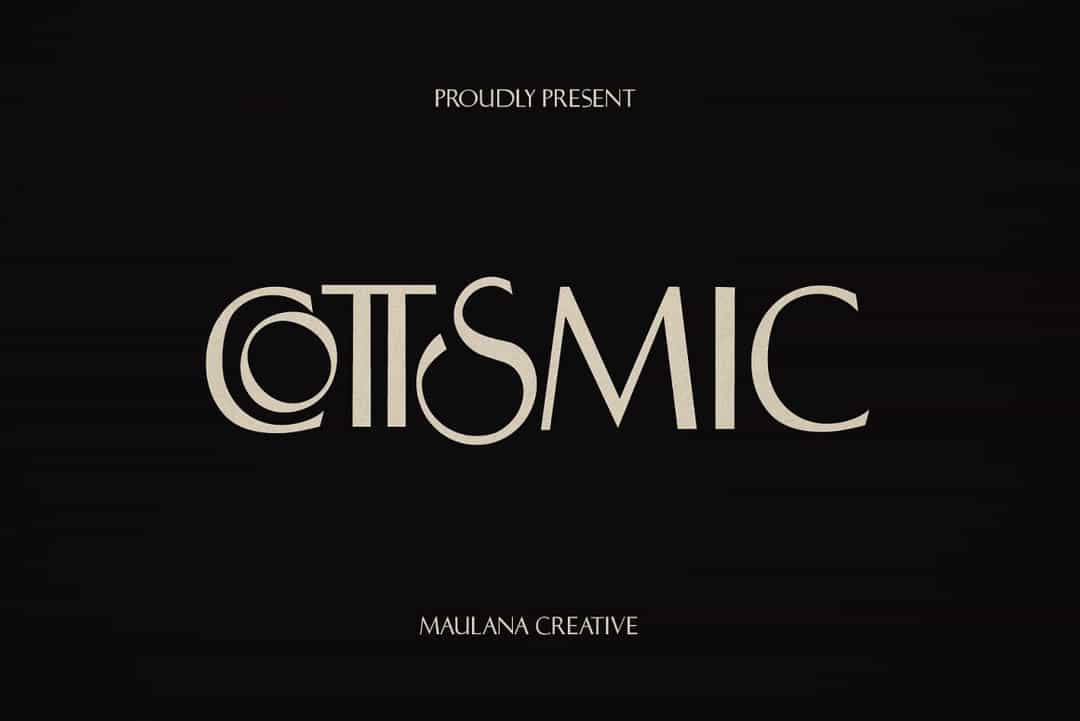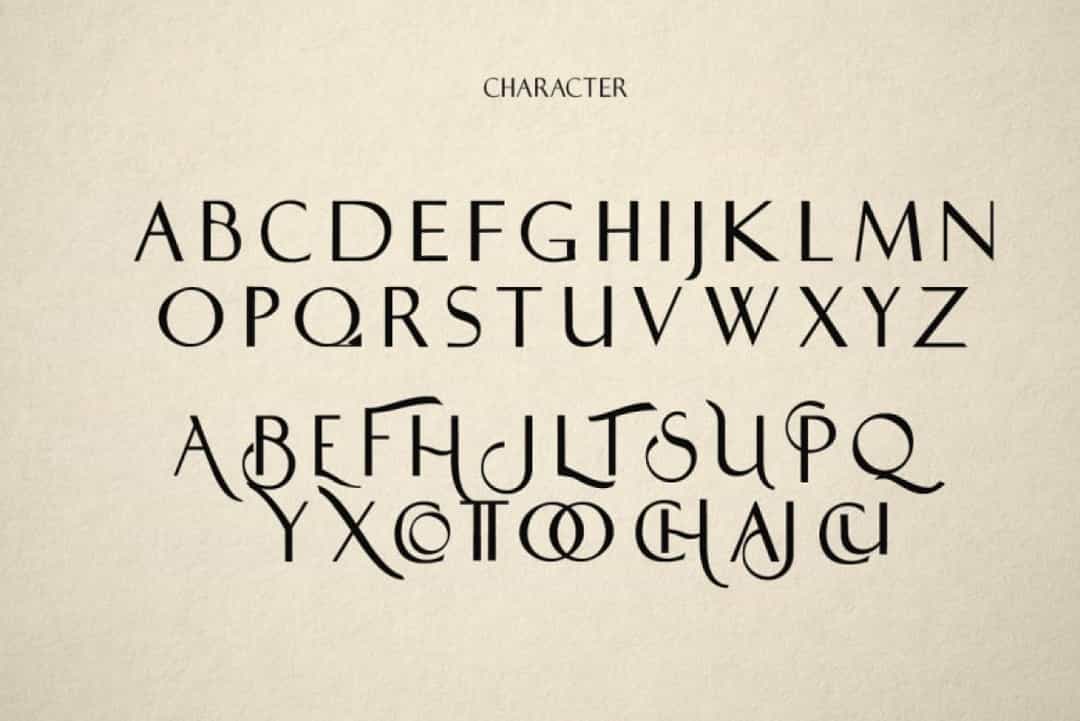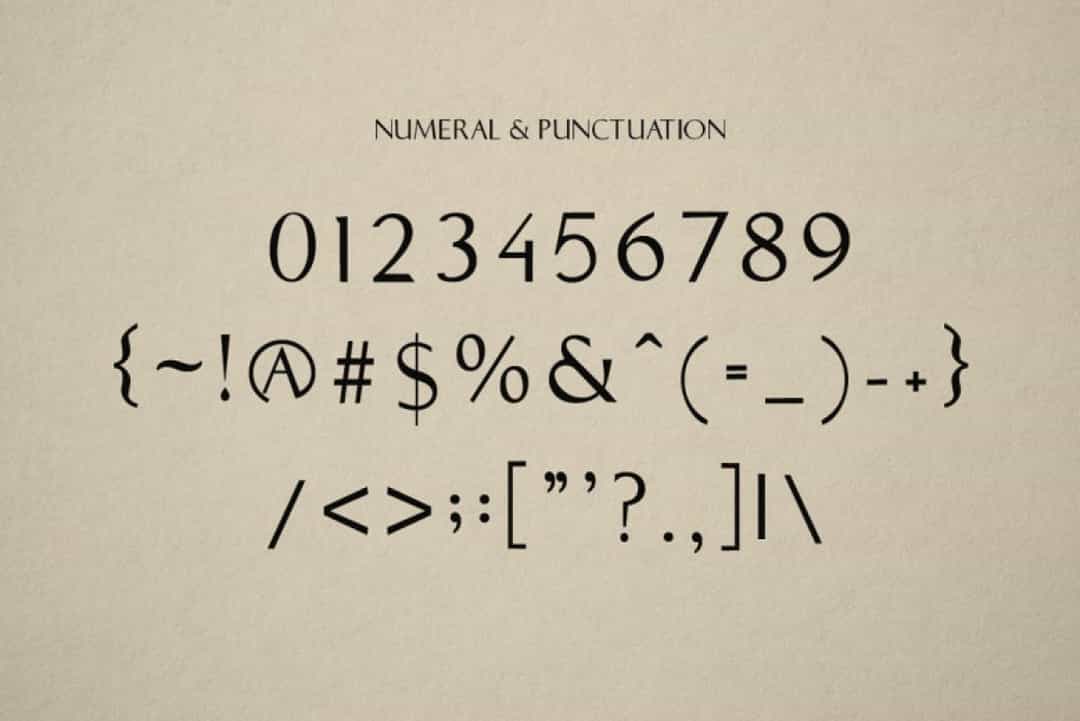
Cottsmic is an innovative sans serif font featuring bold weight, distinct and fun styles with subtle ligatures that enable artistic work to flourish. Cottsmic supports over 100 multilingual languages. Cottsmic Font is perfect for logo design, social media posts and Movie, Book Titles as well as short and lengthy texts alike – making an eye-catching accent font with its script features! Use Cottsmic Sans Serif Font to craft stunning artwork!